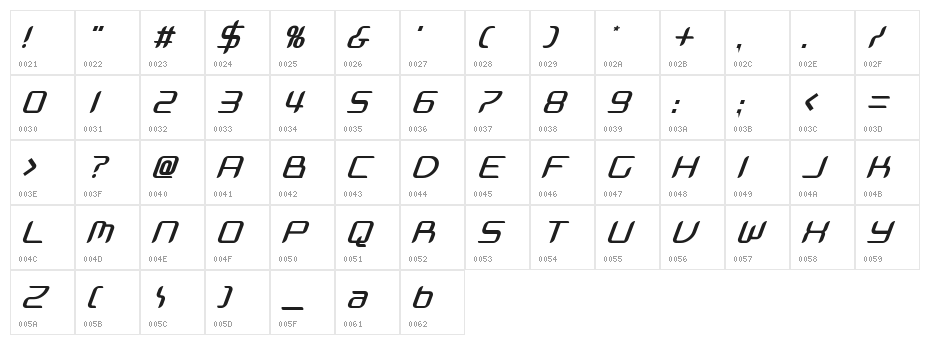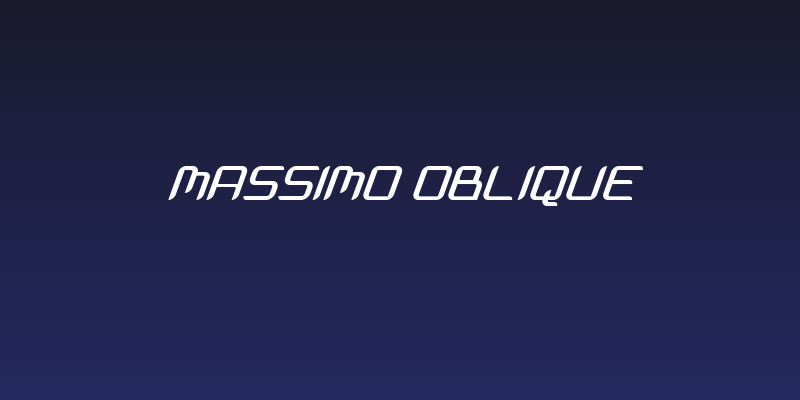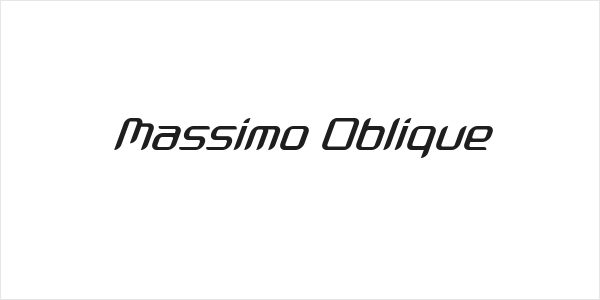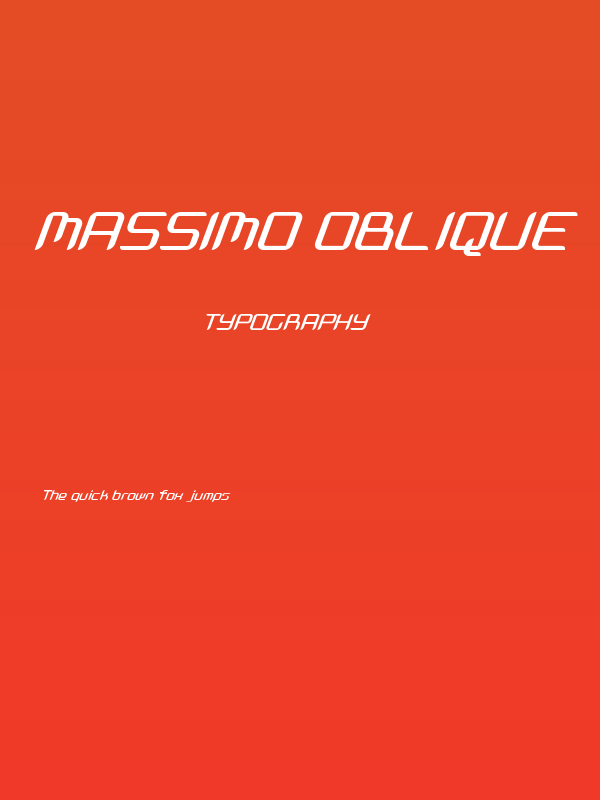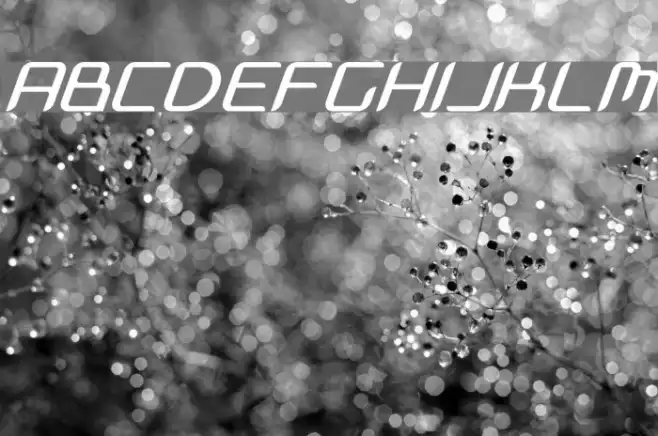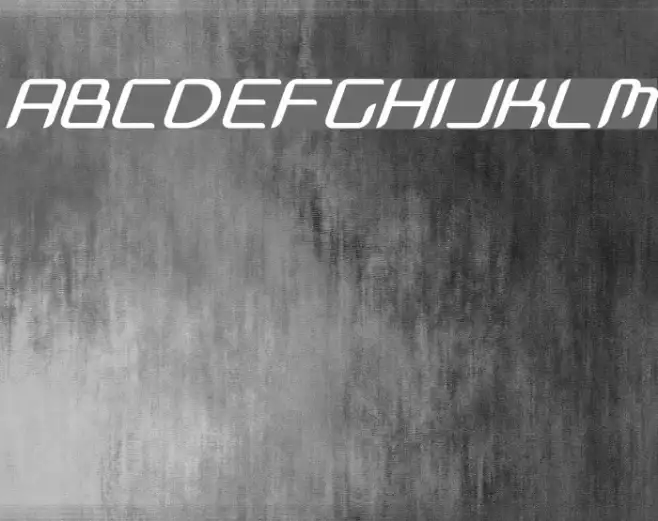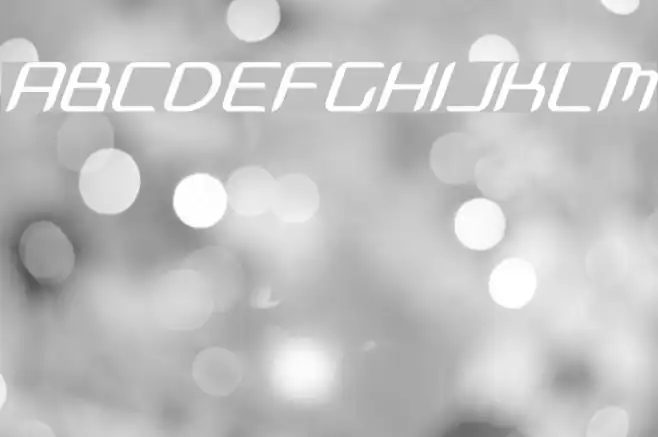
Massimo Oblique Font
Massimo Oblique Description
This font features a sleek and modern design with an oblique style, giving it a dynamic and forward-leaning appearance. The characters are slightly condensed, enhancing its streamlined look. Each letter is crafted with precision, offering a uniform and consistent stroke width that maintains readability while adding a touch of elegance. The font includes both uppercase and lowercase letters, numerals, and a variety of special characters, making it versatile for different design needs. Its geometric shapes and clean lines make it suitable for contemporary projects, where a modern and professional aesthetic is desired.
| Use Case | Headlines, Logos, Digital media |
| Proposed Projects | Ideal for branding, advertising, and digital media projects that require a modern and professional look. |